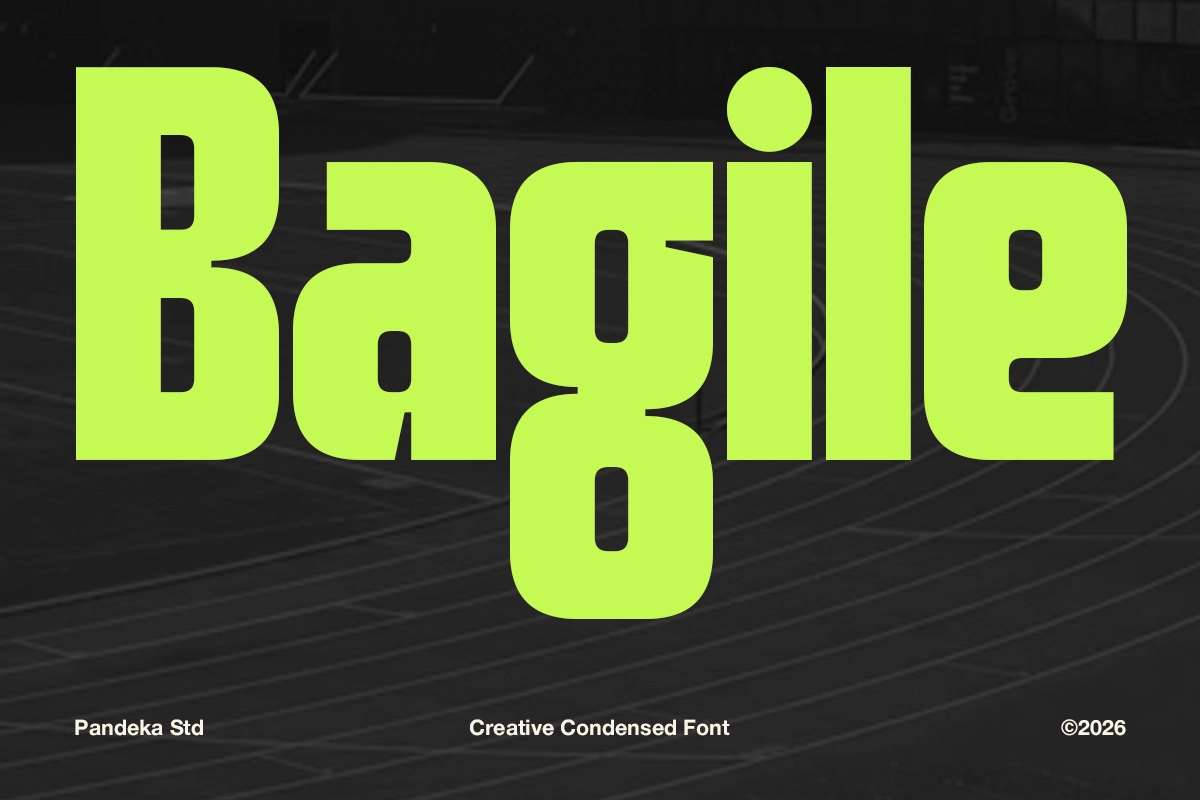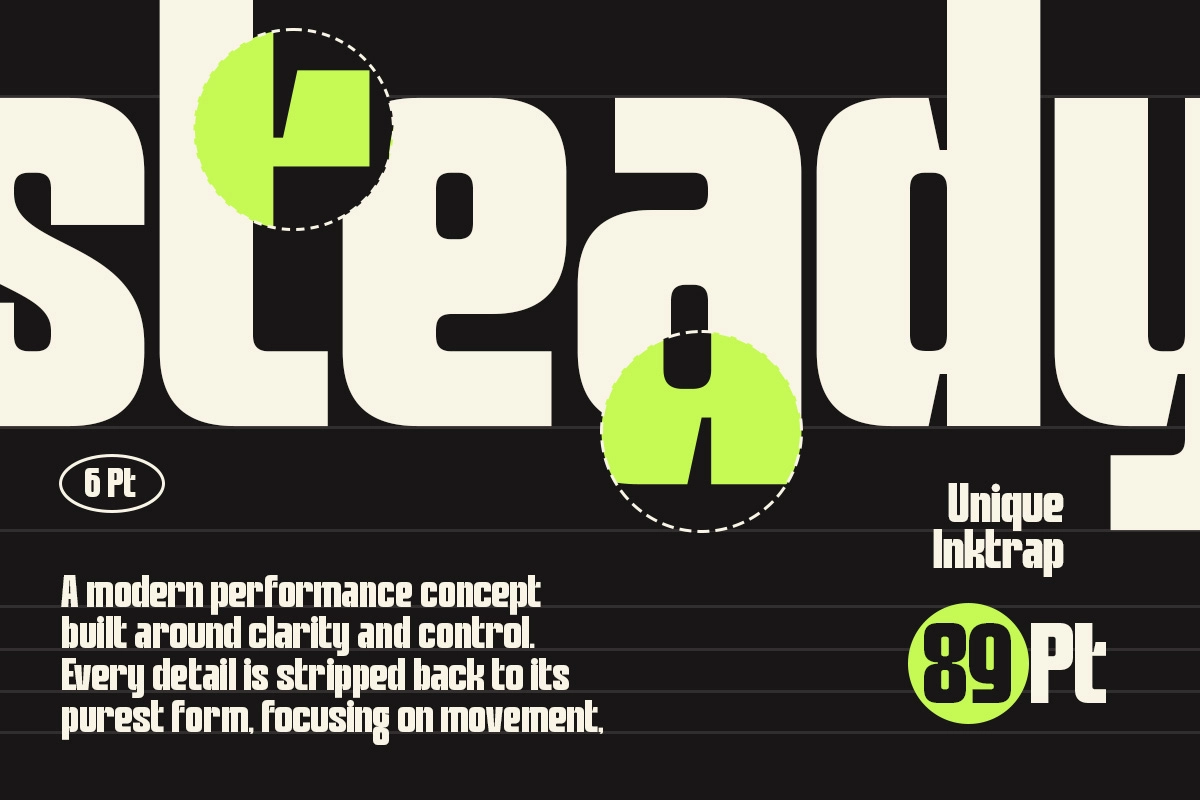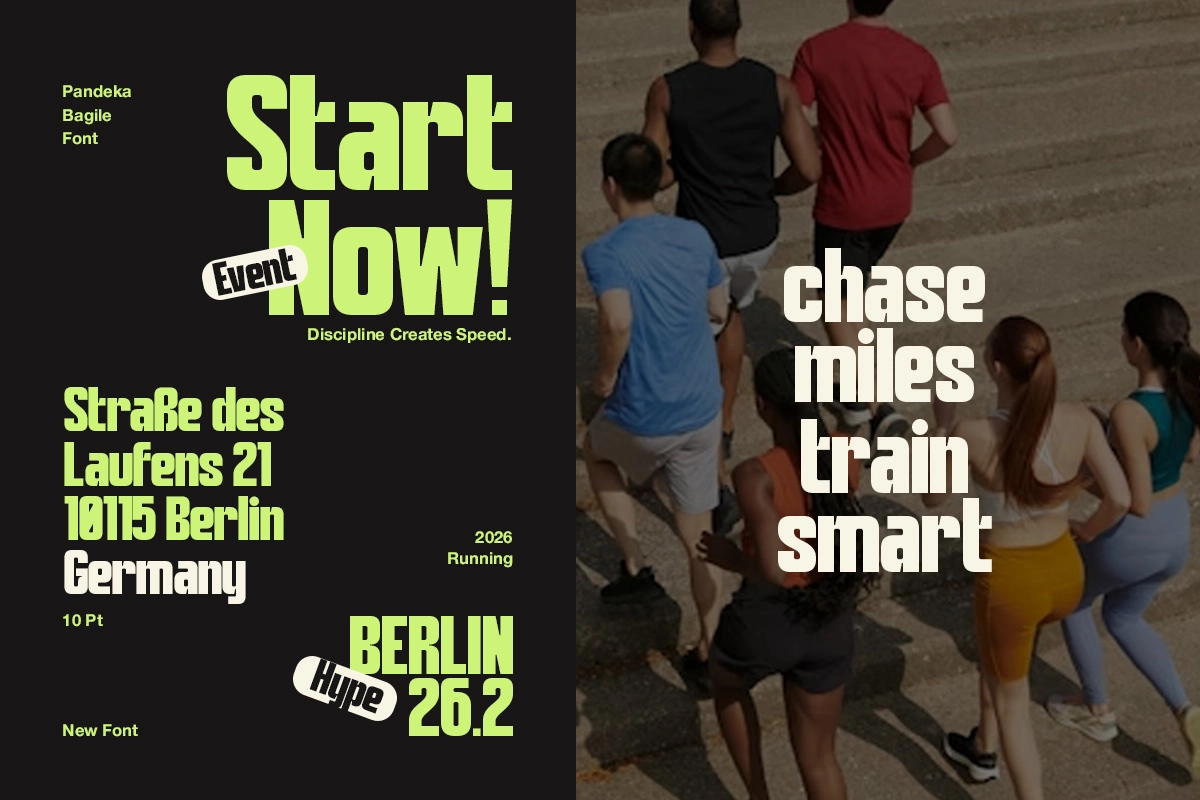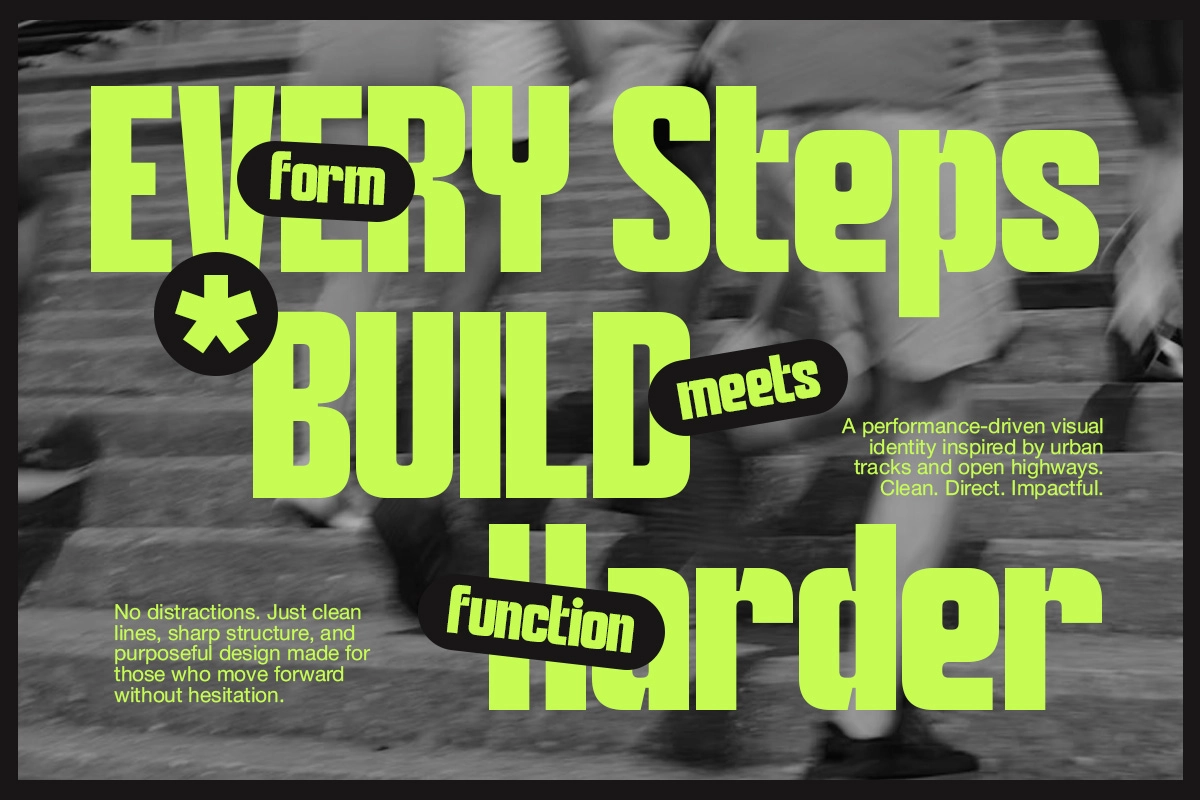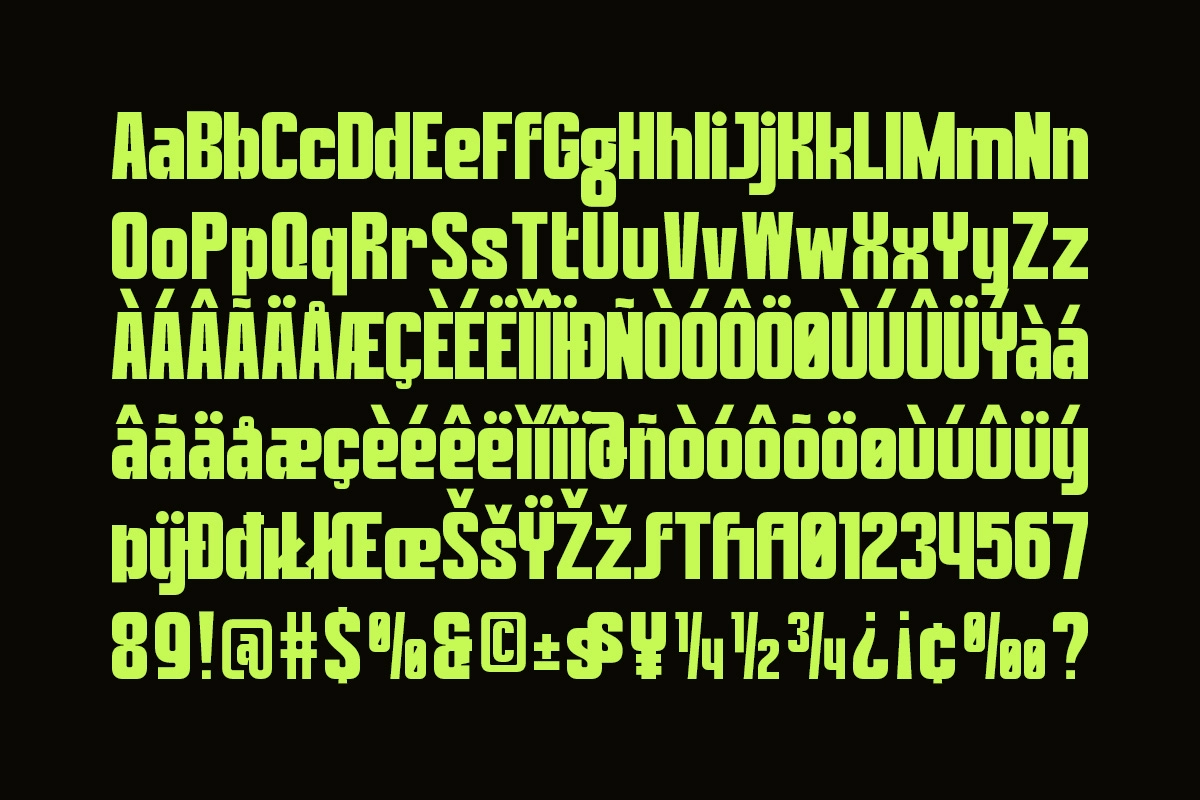
Bagile - Sports Condensed Font
Bagile
Bagile stacks tall, compact letterforms into a bold sports condensed font, with flat-cut terminals and ink traps holding the thick strokes together even at small sizes. The proportions read like a stadium scoreboard or a race bib number more than a gym-flyer template, built to hold up at a sprint's motion blur.
Set short, it goes loud on posters and jersey graphics; set across a headline stack, it keeps a steady, scoreboard rhythm from top line to bottom. Use it for sports branding, race and event posters, jersey and merchandise graphics, motivational social content, and scoreboard-style editorial headlines.